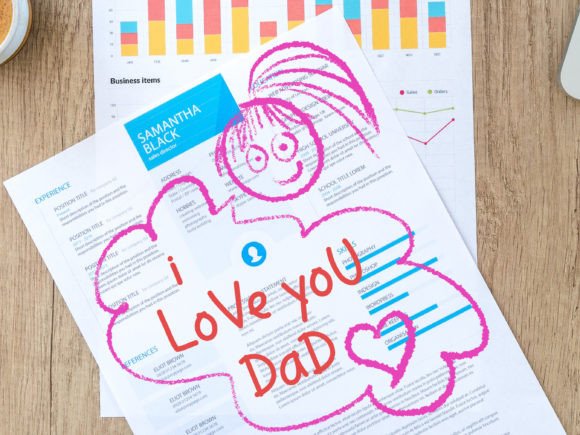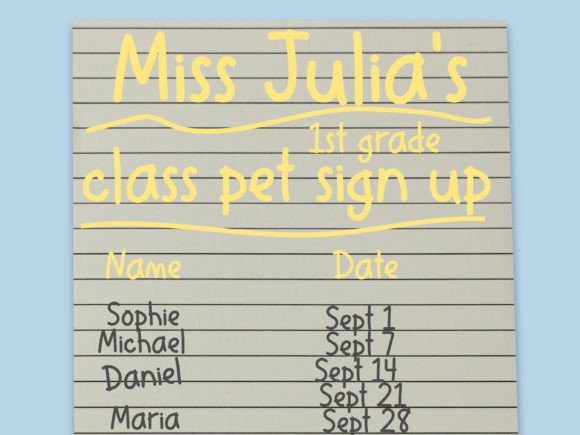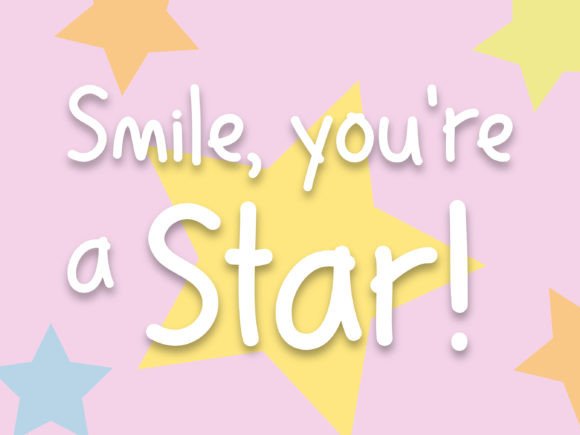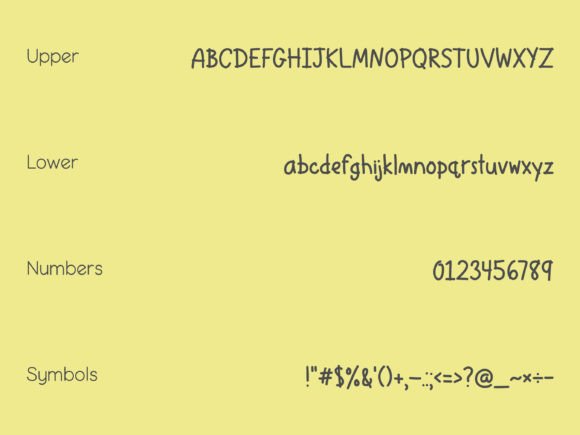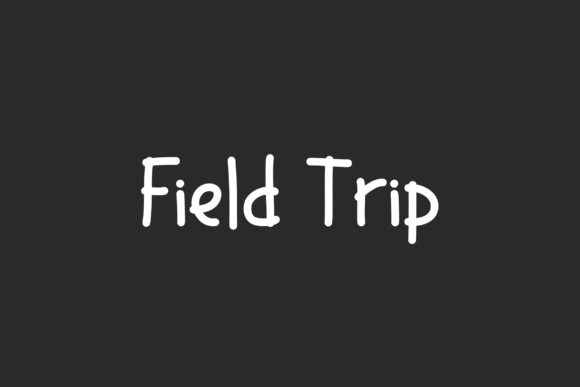
Introducing Field Trip Font: The Perfect Handwritten Messy Font for Your Creative Projects
Are you a designer or crafter looking for a unique and playful font to add a personal touch to your projects? Look no further than Field Trip Font, a handwritten messy font that embodies a natural and childlike writing style. With its imperfect and organic feel, Field Trip Font is perfect for use in a variety of creative applications, from posters and sublimation to digital planners and more.
The Charm of Handwritten Messy Fonts
Handwritten messy fonts have become increasingly popular in recent years, and for good reason. They offer a level of personality and whimsy that can be difficult to achieve with more traditional fonts. Field Trip Font takes this to the next level with its unique blend of natural and childlike writing. The font’s imperfections and irregularities give it a sense of authenticity and human touch, making it perfect for projects where you want to add a personal element.
What Makes Field Trip Font So Special?
So, what sets Field Trip Font apart from other handwritten messy fonts on the market? Here are just a few of its standout features:
- Natural and childlike writing style: Field Trip Font has a carefree, playful feel that’s reminiscent of handwritten notes and scribbles from childhood.
- Imperfect and organic feel: The font’s irregularities and imperfections give it a sense of authenticity and human touch.
- Highly versatile: Field Trip Font can be used in a wide range of creative applications, from posters and sublimation to digital planners and more.
- Easy to read: Despite its messy and handwritten feel, Field Trip Font is surprisingly easy to read, making it perfect for use in projects where legibility is important.
Using Field Trip Font in Your Creative Projects
So, how can you use Field Trip Font in your creative projects? Here are just a few ideas to get you started:
- Posters and flyers: Add a playful touch to your posters and flyers with Field Trip Font’s unique and eye-catching style.
- Sublimation: Use Field Trip Font to add a personal touch to your sublimation projects, from custom t-shirts to mugs and more.
- Digital planners: Add a touch of whimsy to your digital planners with Field Trip Font’s playful and childlike writing style.
- Handmade crafts: Use Field Trip Font to add a personal touch to your handmade crafts, from cards and gift tags to scrapbook pages and more.
Tips for Getting the Most Out of Field Trip Font
Here are a few tips for getting the most out of Field Trip Font:
- Experiment with different colors: Field Trip Font looks great in a wide range of colors, from bright and bold to soft and pastel.
- Mix and match with other fonts: Try pairing Field Trip Font with other fonts for a unique and interesting look.
- Use it sparingly: Field Trip Font is a statement font, so use it sparingly to add emphasis and interest to your projects.
Field Trip Font is a unique and versatile handwritten messy font that’s perfect for designers and crafters looking to add a personal touch to their projects. With its natural and childlike writing style, imperfect and organic feel, and highly versatile design, Field Trip Font is sure to become a favorite in your font collection. So why not give it a try and see the difference it can make in your creative projects?